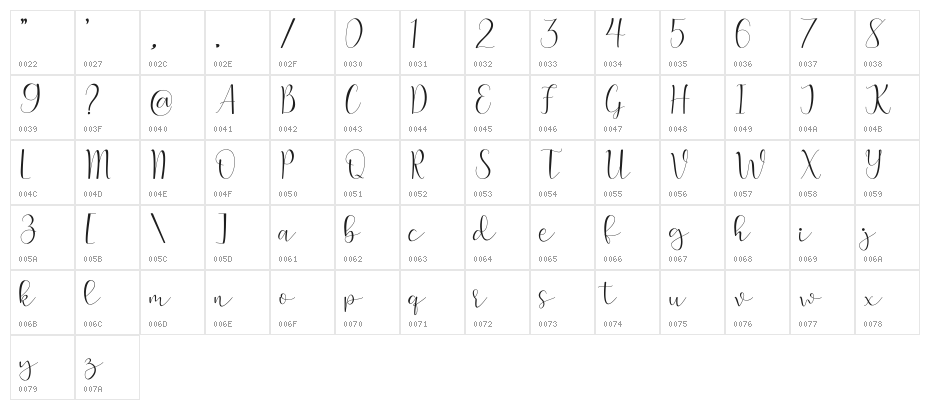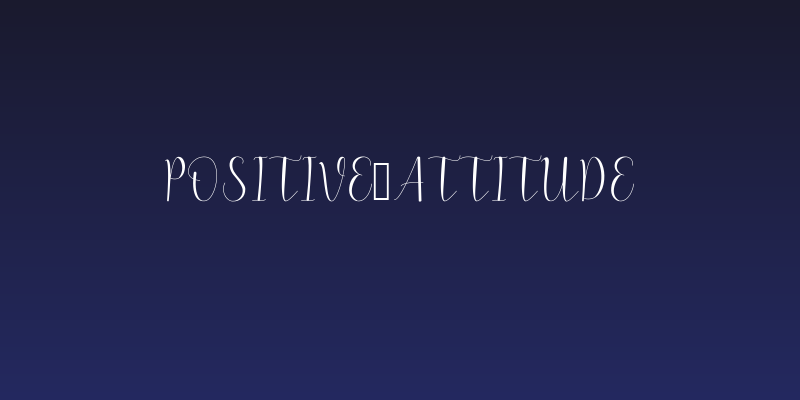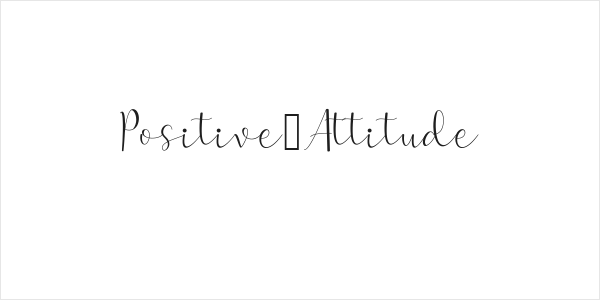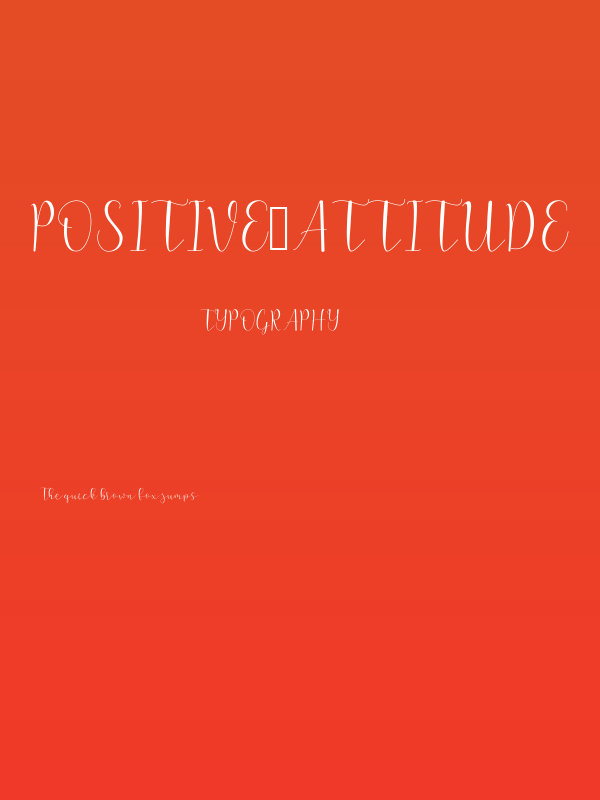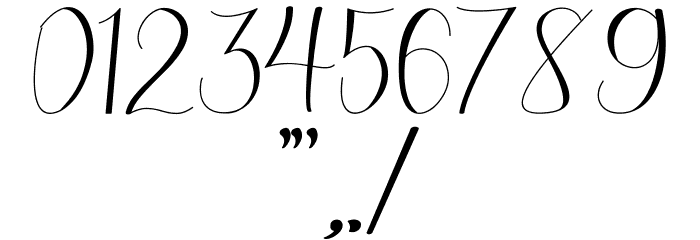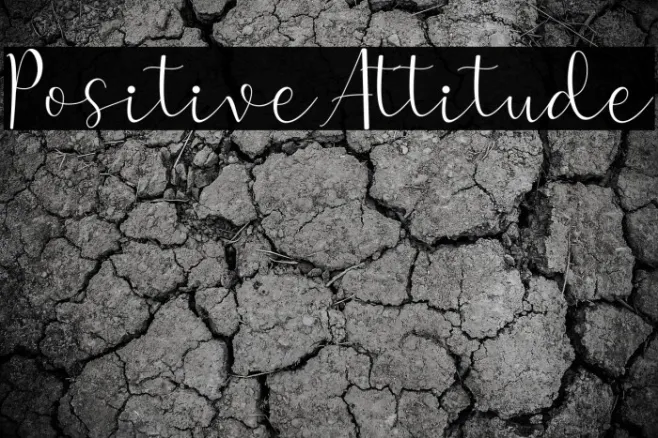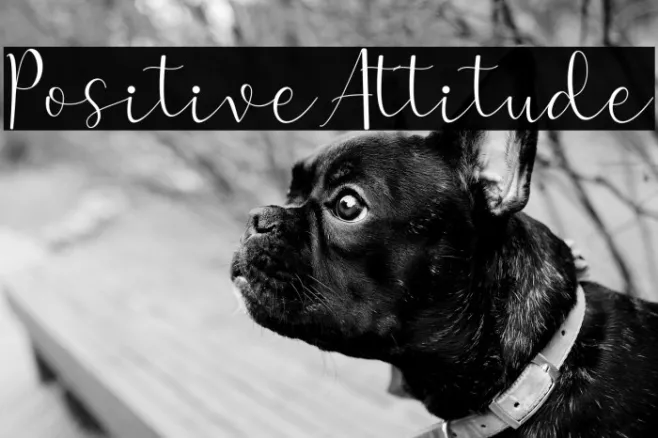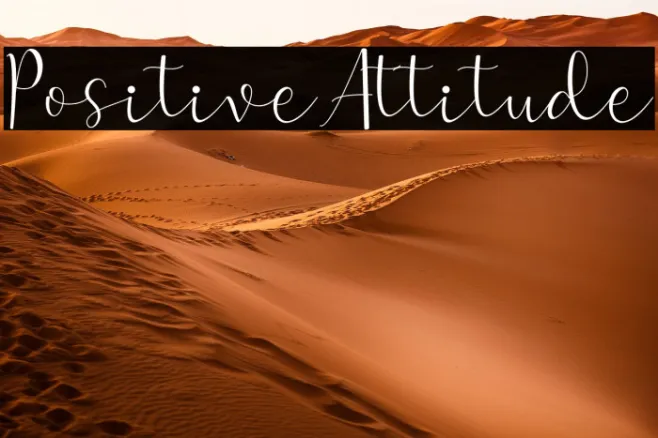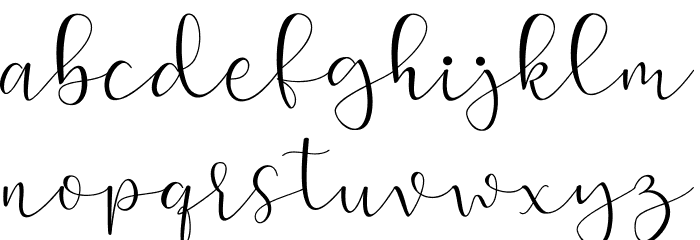
Positive-Attitude Font
Positive-Attitude Description
This elegant script font features a graceful, flowing style with high contrast between thick and thin strokes. The uppercase letters are tall and slender, with delicate curves and loops that add a touch of sophistication. The lowercase letters maintain a consistent flow, enhancing the font's overall fluidity and charm. Numbers and special characters are crafted with the same attention to detail, ensuring a cohesive look across all elements. This font exudes a sense of elegance and refinement, making it ideal for projects that require a touch of class and sophistication.
| Overall Style | Elegant, Sophisticated |
| Use Case | Headlines, Invitations, Branding |
| Proposed Projects | Ideal for wedding invitations, elegant branding, luxury product packaging, and sophisticated event announcements. |